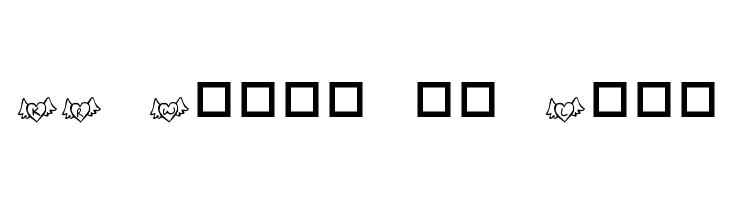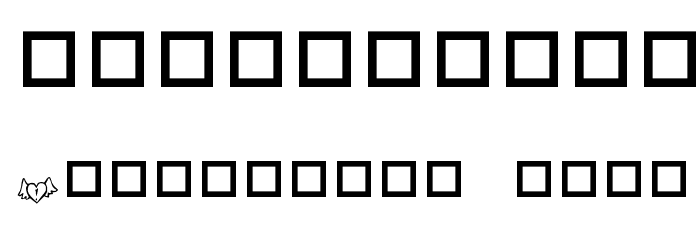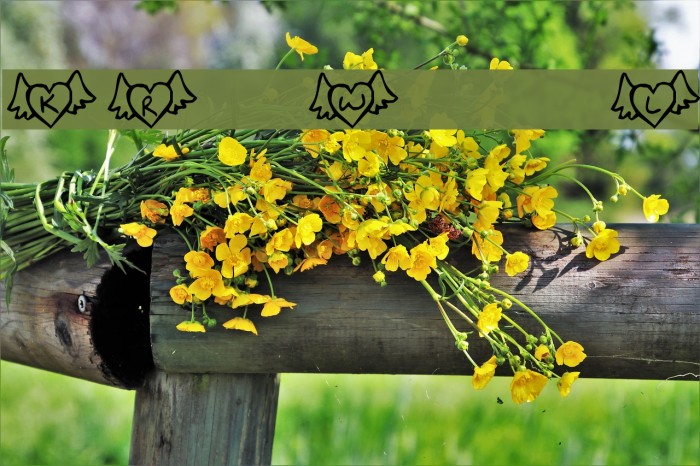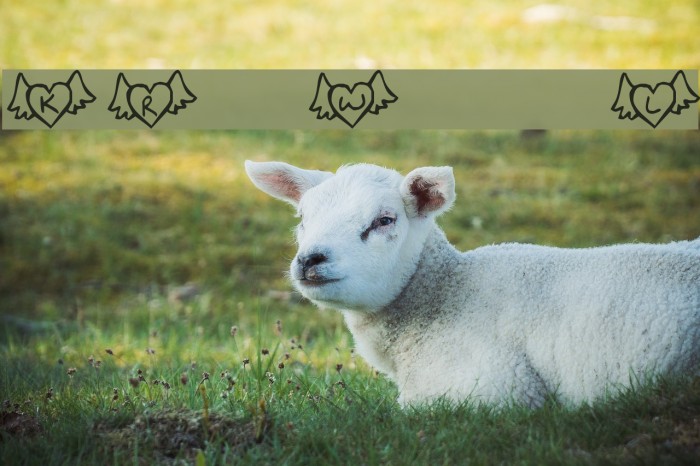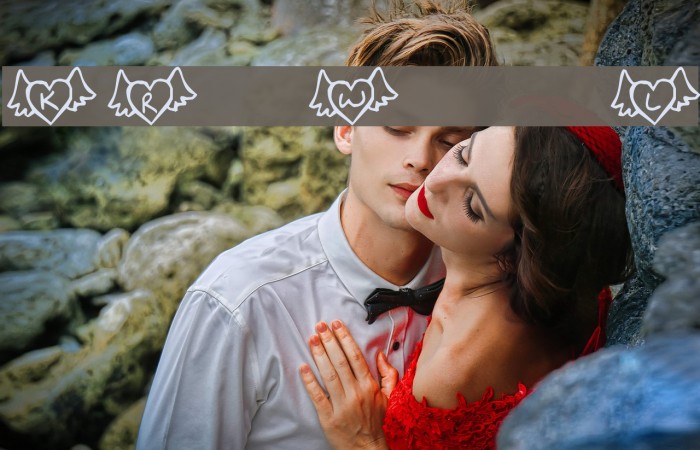
KR Wings of Love Font
KR Wings of Love Description
This decorative font features a unique design where each character is integrated into a heart shape with wings, creating a whimsical and romantic appearance. The letters are stylized with a playful and artistic flair, making them ideal for creative projects. The font is primarily composed of uppercase letters, each enclosed within the heart and wing motif, giving it a cohesive and thematic look. The intricate design of the characters suggests a hand-drawn quality, adding to its charm and appeal. This font is perfect for projects that require a touch of elegance and creativity, such as wedding invitations, greeting cards, or any design that aims to convey love and affection.
| Use Case | Logos, Headlines, Artistic designs |
| Proposed Projects | Wedding invitations, greeting cards, love-themed posters, and artistic designs. |